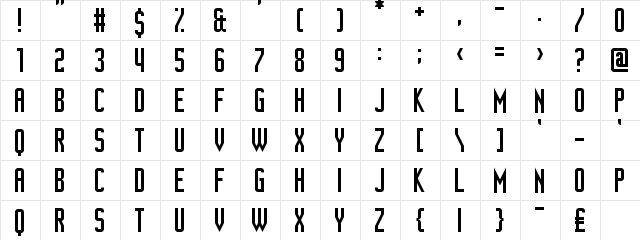
Ganymedian Regular
| Designer | NAL |
Design Context for Ganymedian Typeface
Ganymedian offers clean, dependable letterforms without strong stylistic allegiance, making it a practical choice for designers who need flexibility.